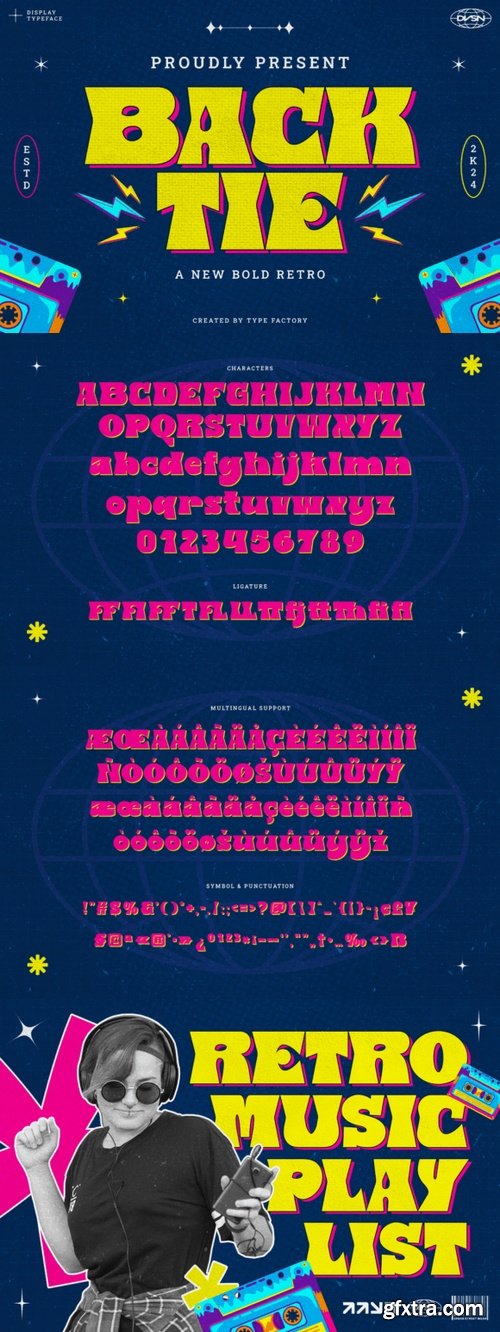
Backtie Font
- Channel the nostalgic allure of decades past with Backtie: a bold, retro-style font steeped in vintage charm. This incredibly fun and sturdy font is characterized by its cheerful chunkiness and distinctive, warm curvature – perfect for throwing back to the 70s and 80s aesthetics. Backtie’s formidable presence makes it the ideal choice for posters, brand identity, packaging, and headline creation, infusing each with an intriguing blend of old-world charisma and contemporary flair. By choosing Backtie, you open your design projects to a world full of bold personality, warmth, and an unforgettable impact.